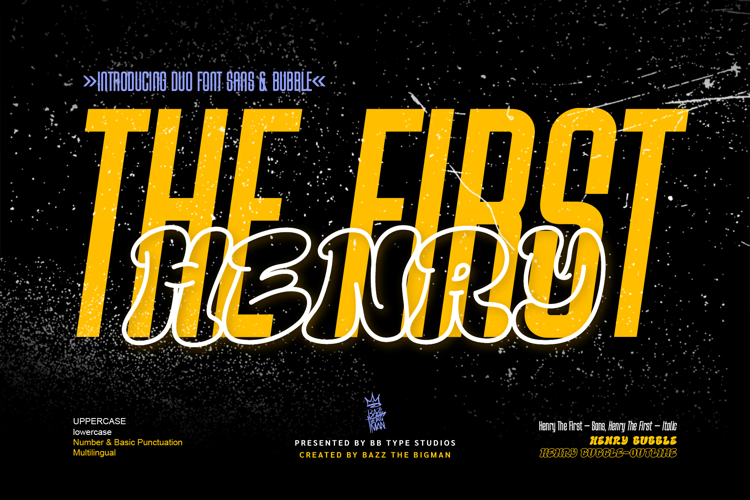
Henry The First is a versatile duo typeface featuring two distinct styles:
• Henry The First – Sans
• Tall, condensed, and clean. Perfect for headlines, posters, editorial layouts, and branding.
• Henry Bubble
• Soft, rounded, and playful. Ideal for streetwear, pop culture designs, quotes, and expressive typography.
This font family is designed to work beautifully together or stand strong on its own.
Whether you’re designing bold headlines, fashion graphics, album covers, or eye-catching social media posts, Henry The First delivers a confident and modern voice.
• Numbers & Basic Punctuation
• Duo Font (Sans + Bubble)
• Easy to Mix & Match
• Perfect for Headlines & Display Use
Best for
• Posters & Editorial Headlines
• Branding & Logo Design
• Streetwear & Apparel
• Music Covers & Album Art
• Social Media Graphics
• Pop & Urban Design Projects
Pair the clean structure of Sans with the playful energy of Bubble to create contrast-driven typography.